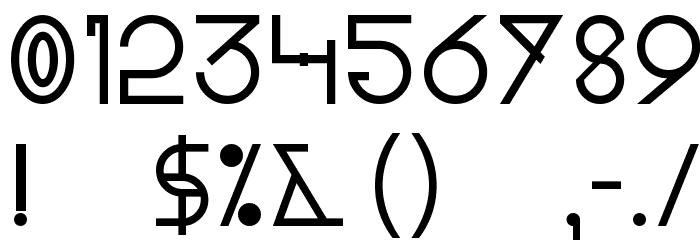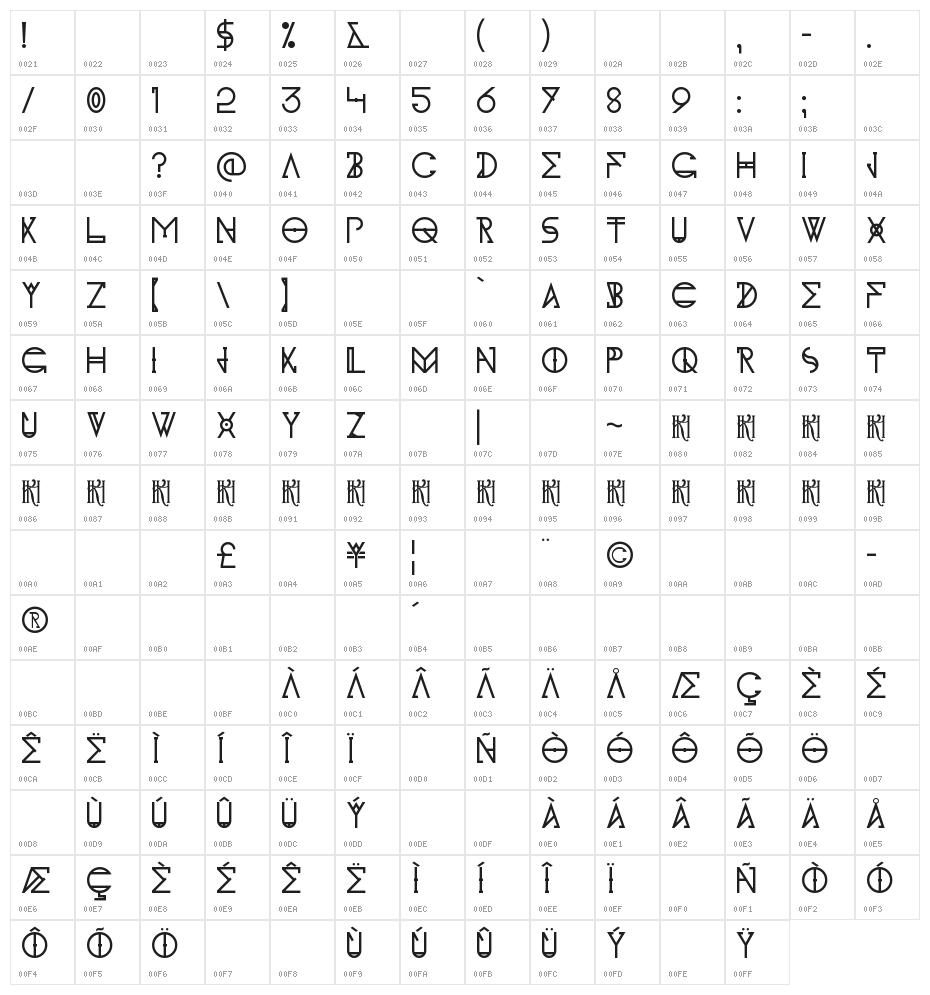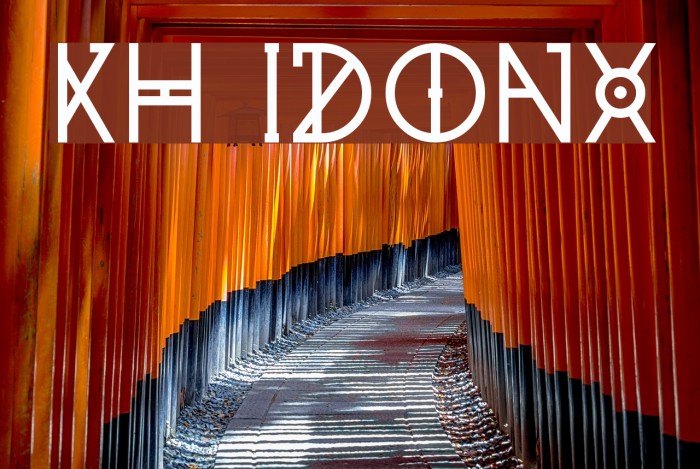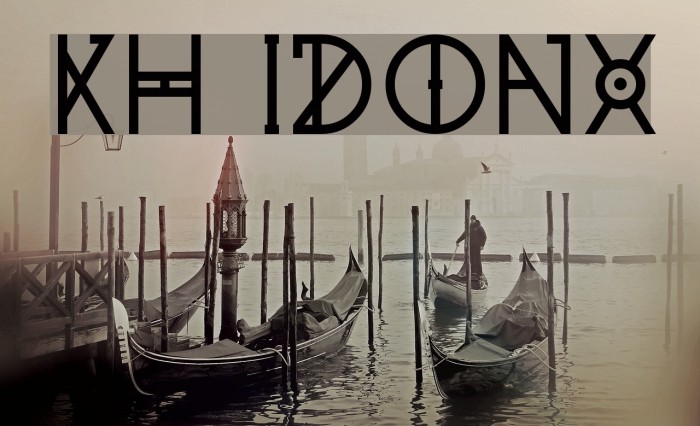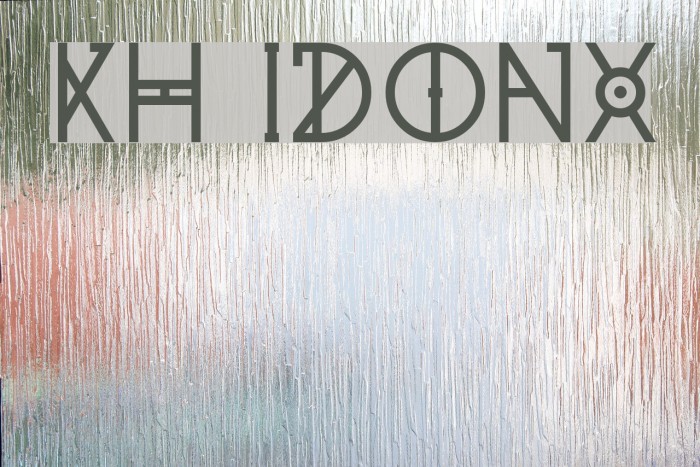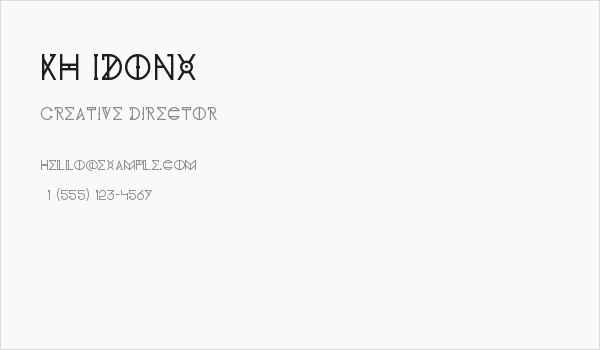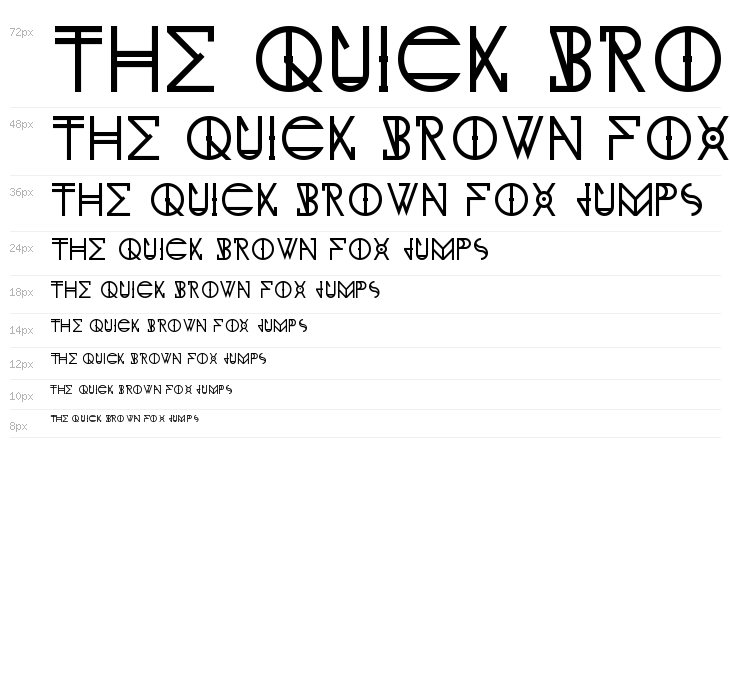
KH Idonx Font
KH Idonx Description
This font features a unique and modern geometric design, characterized by its angular shapes and distinct use of negative space. The letters are constructed with bold, straight lines and sharp angles, creating a futuristic and edgy appearance. The font includes both uppercase and lowercase letters, numerals, and a selection of special characters. Its design is highly stylized, with certain letters incorporating circular elements and diagonal cuts that add to its dynamic look. The overall aesthetic is both artistic and functional, making it suitable for creative and contemporary projects.
| Proposed Projects | Ideal for branding, logos, posters, and any project requiring a futuristic and artistic touch. |